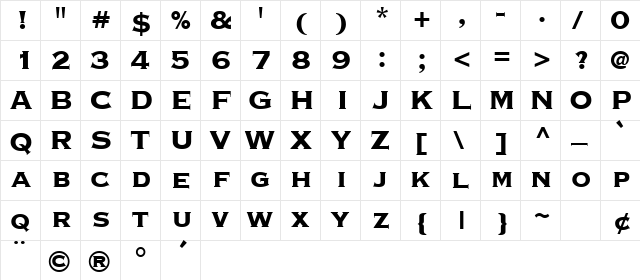
CooperPlanck8 HeavySH
Design Context for CooperPlanck8 Typeface
CooperPlanck8 is a composed and adaptable typeface that performs quietly and consistently across a wide range of design contexts.